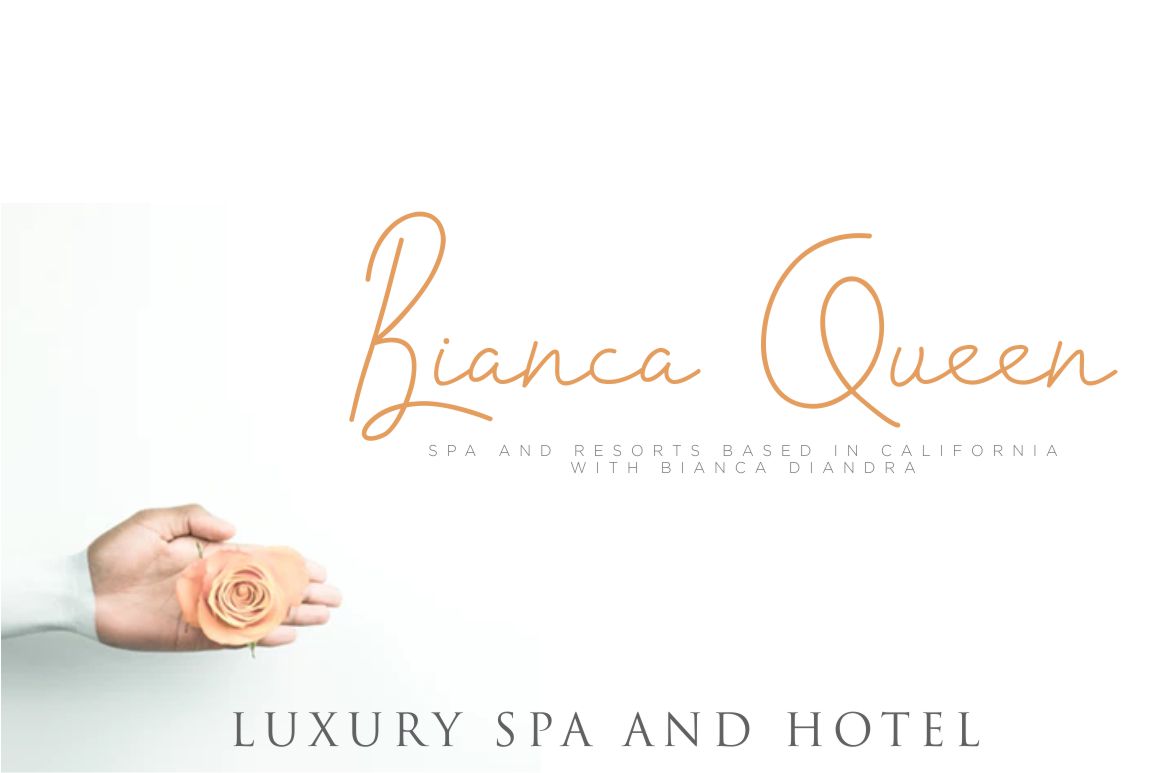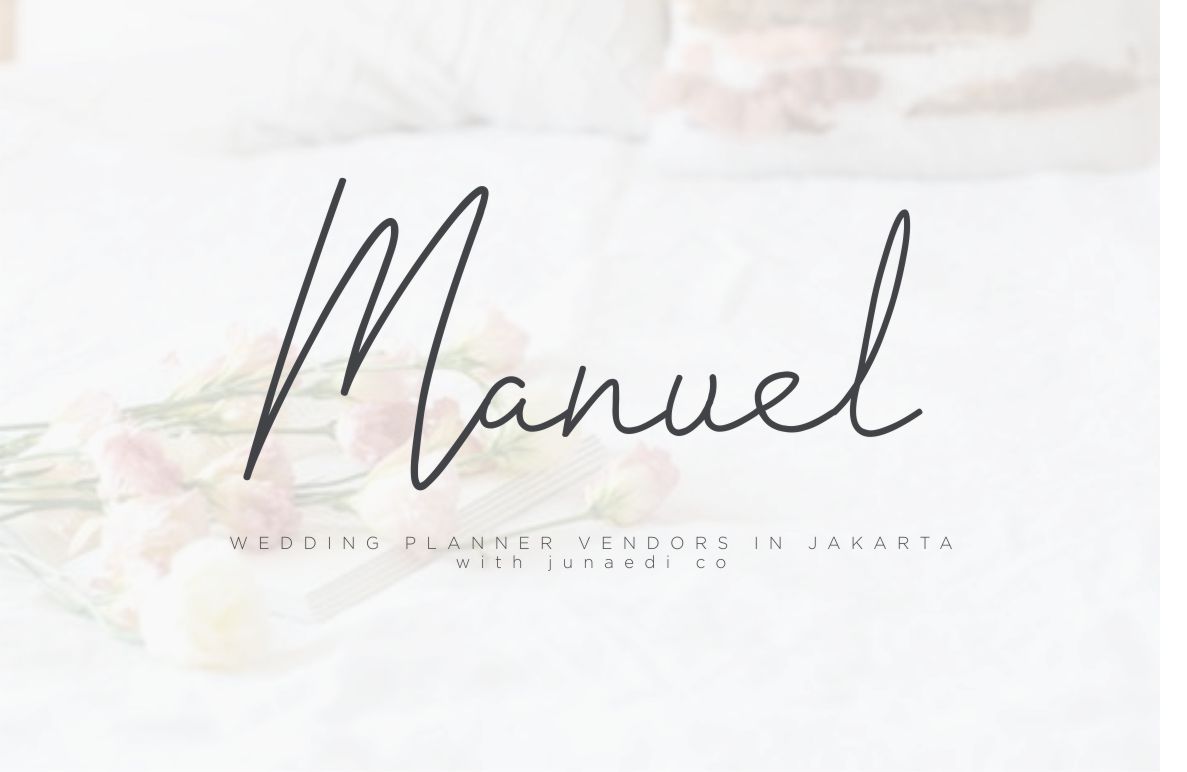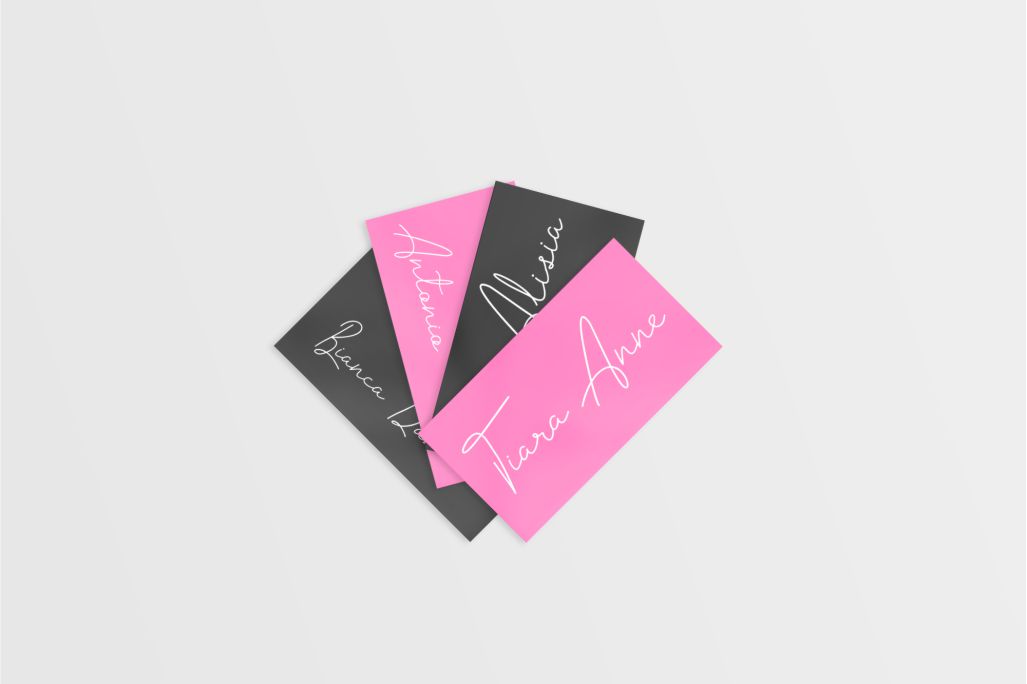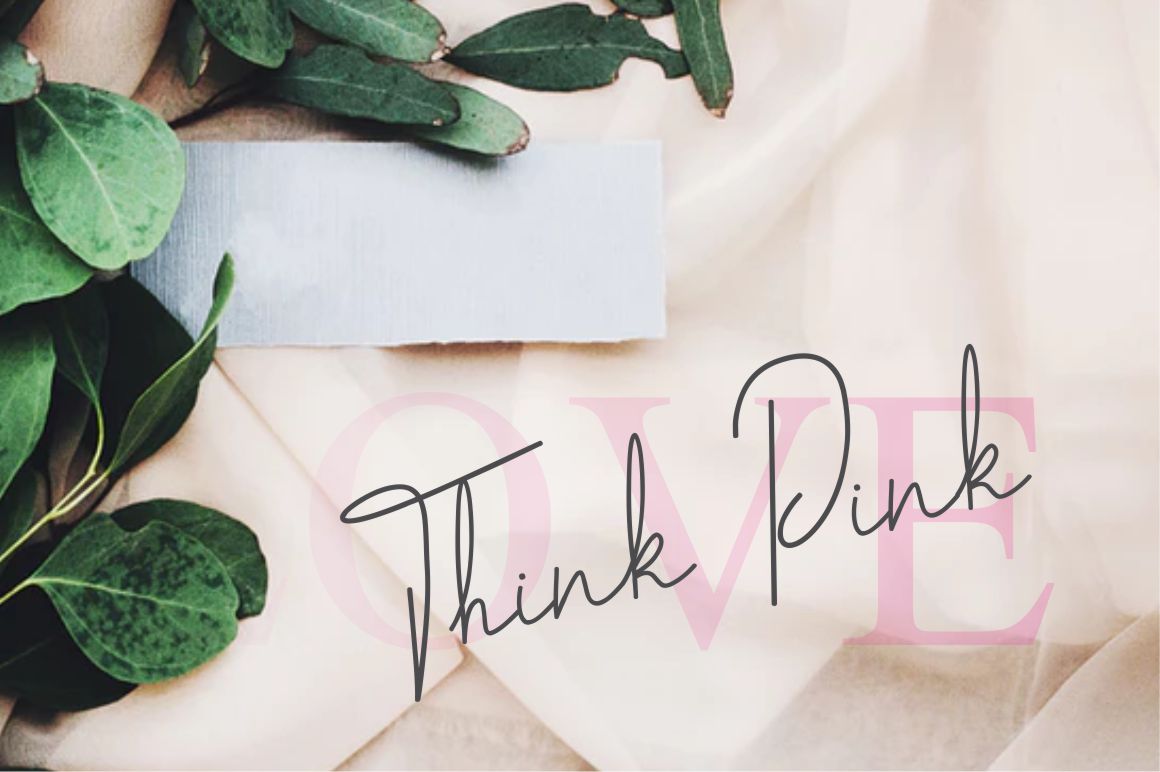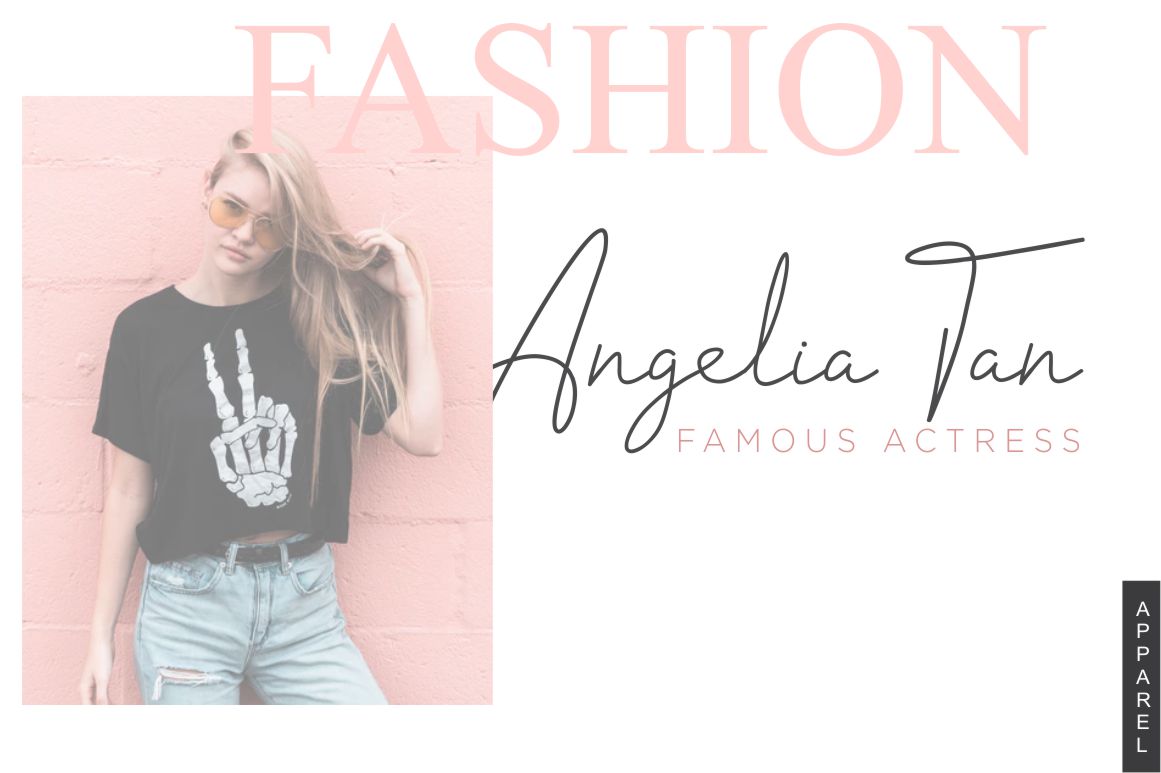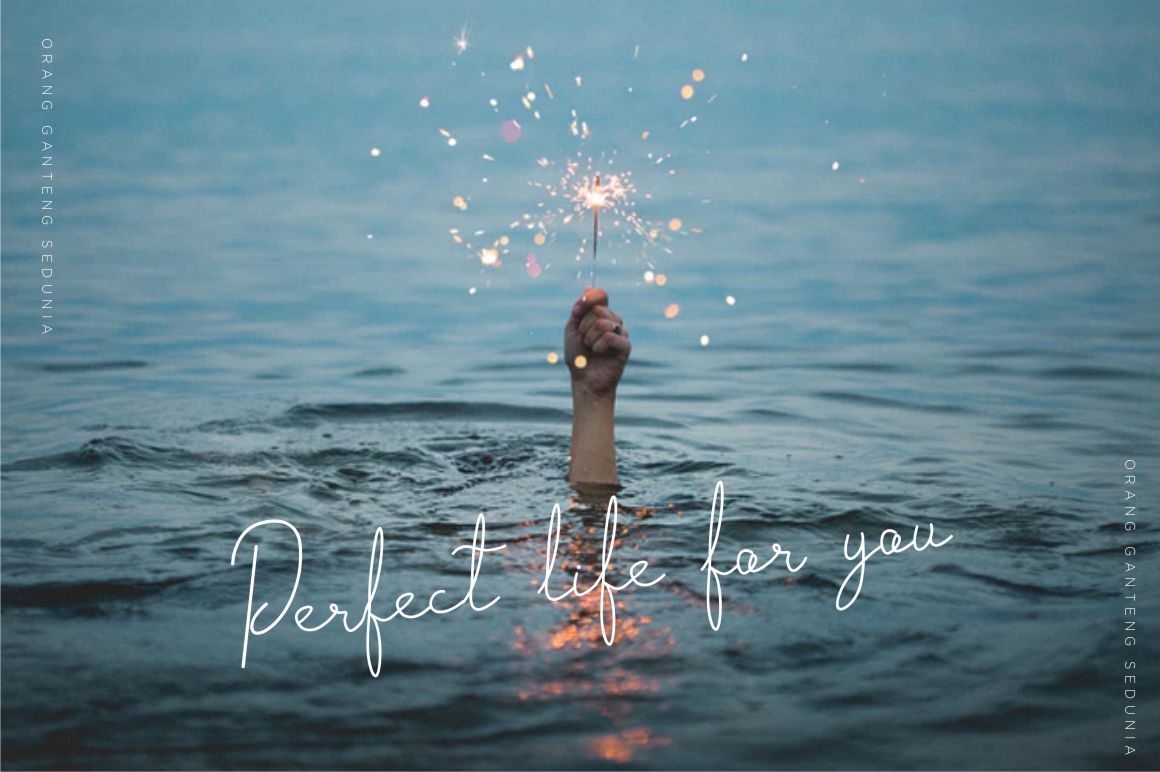
The Perfect Font for a Romantic Touch
You know that moment when you’re designing a project and you’re searching for the perfect font to convey the emotions and tone you want to express? It’s like searching for the perfect word to describe a beautiful sunset – it’s elusive, but when you find it, it’s pure magic. That’s exactly what happens when you discover the Cantilena Font, a beautiful script font that adds a touch of romance and charm to any design.
Cantilena Font is a display font designed to make a statement, whether it’s a headline, a logo, or a beautiful quote. Its elegant curves and flowing lines evoke a sense of sophistication and whimsy, making it a valuable addition to any designer’s toolkit. Whether you’re designing a wedding invitation, a fashion brand, or a romantic novel, the Cantilena Font is sure to bring a touch of magic to your design.
Cantilena Font Key Features
- Unique Characteristics: Cantilena Font features a unique blend of modern and classical elements, with a flowing, cursive style that is both elegant and sophisticated.
- Font Weight: The font comes in 3 different weights, including Light, Regular, and Bold, allowing designers to choose the perfect level of emphasis for their text.
Cantilena Font Review
Overall, I’m impressed with the Cantilena font. It’s a beautiful, elegant script that can add a touch of sophistication to any design project. ✨ The flowing lines and connected strokes give it a sense of movement and fluidity, making it perfect for headings, titles, and other display text.
- ✨ Elegant and sophisticated design: Cantilena is perfect for projects that require a touch of luxury and refinement.
- ✨ Versatile: It works well in a variety of contexts, from formal to informal.
- ✨ Great for headings and titles: The font’s flowing lines make it ideal for drawing attention and adding visual interest.
- ⚠️ Limited legibility at small sizes: While Cantilena is beautiful, it can be difficult to read at small font sizes.
- ⚠️ May not be suitable for body text: The font’s flowing lines can make it difficult to read large blocks of text.
Overall, I think Cantilena is a great addition to any designer’s toolkit. While it may have some limitations, its unique design and versatility make it a great choice for the right projects.
Getting the Most Out of Cantilena Font
For the best results with Cantilena font, use it in titles, headings, and other decorative text elements. It is particularly suitable for elegant and sophisticated designs. You can also experiment with different font sizes, colors, and combinations to create unique and visually appealing effects.
The Cantilena font is commonly used for:
- Luxury branding and packaging
- Formal event invitations and announcements
- High-end fashion and beauty branding
Alternatives to Cantilena Font
Playfair Display is a luxurious, high-end font ideal for creating elegant and sophisticated designs. It’s perfect for use in invitations, luxury brands, and high-end publications. Playfair Display is more ornate and decorative compared to Cantilena Font, making it suitable for projects that require a touch of luxury.
2. Merriweather Font
Merriweather is a classic serif font that’s perfect for body text and headings. It’s highly legible and suitable for use in books, magazines, and newspapers. Merriweather is more traditional and conservative compared to Cantilena Font, making it a great alternative for projects that require a classic look.
Q: Is the Cantilena Font available in different weights and styles?
Yes, the Cantilena Font is available in various weights, from light to bold, as well as italic and bold italic styles. This provides designers with a range of options to create visually appealing and effective typography for their designs.